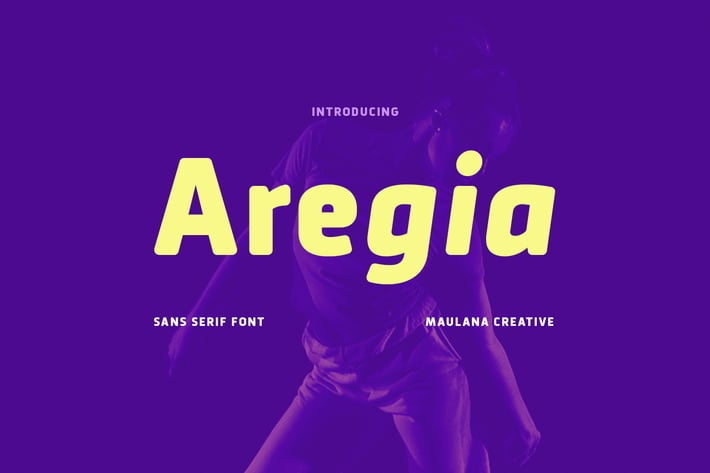
Aregia Sans Serif Font
Aregia is a modern round sans font. Bold stroke, fun character with a bit of ligatures and alternates. To give you an extra creative work. Aregia font support multilingual more than 100+ language. This font is good for logo design, Social media, Movie Titles, Books Titles, a short text even a long text letter and good for your secondary text font with script or serif. Make a stunning work with Aregia font.